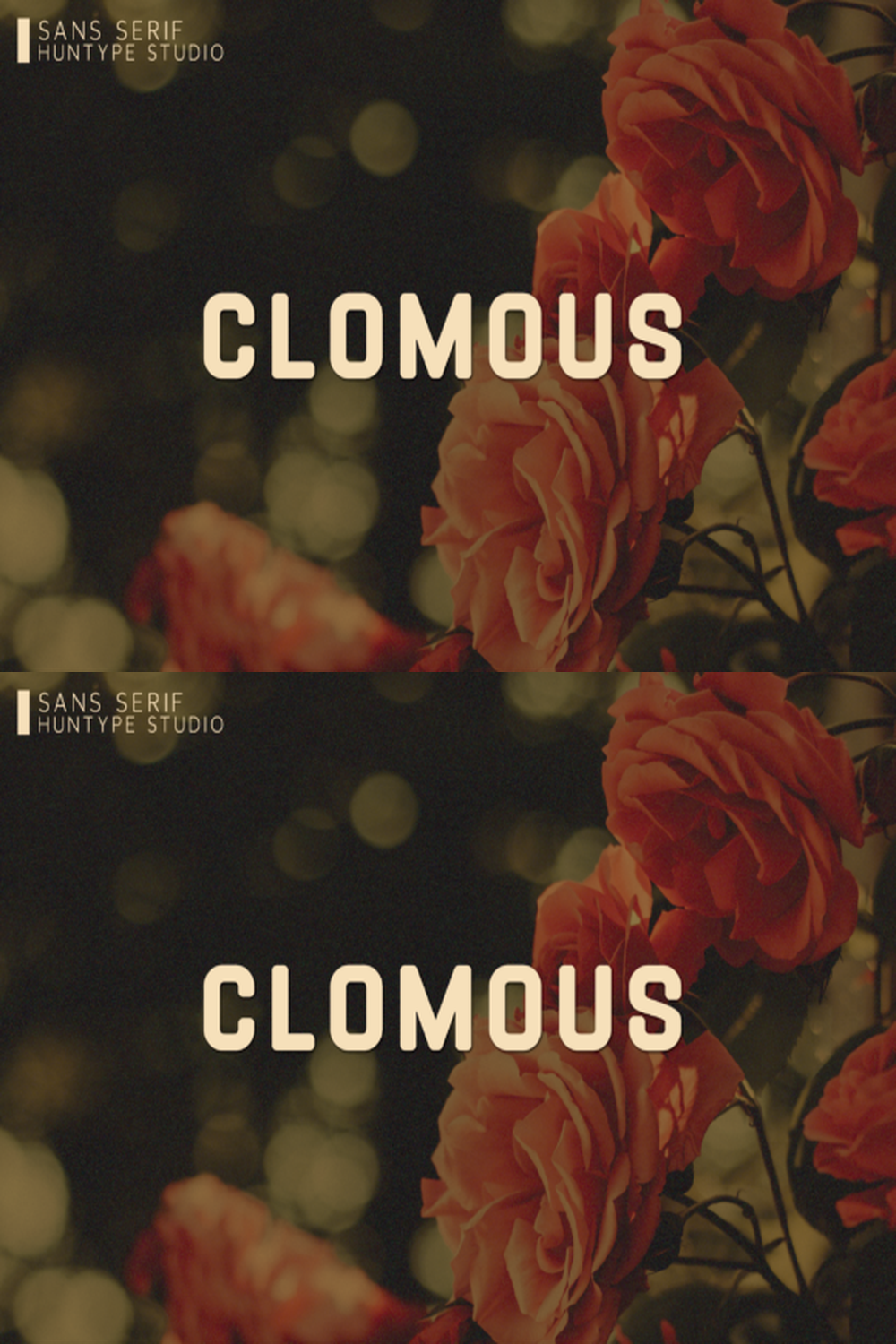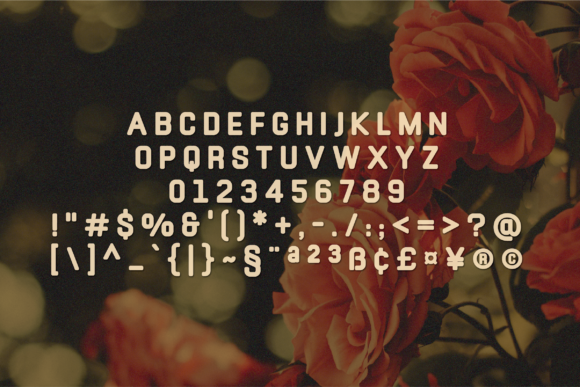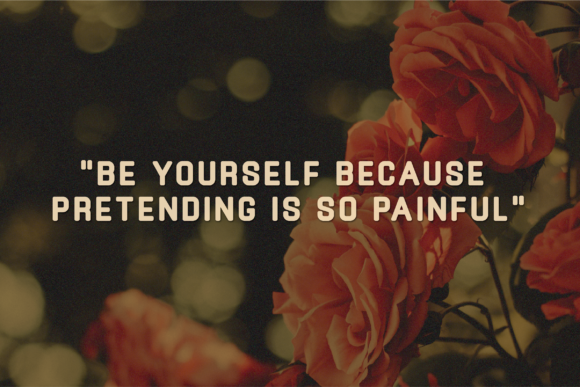
Clomous Font: Versatile Sans Serif for Modern Logo Design
About the Clomous Font
Let us introduce you to Clomous Font, where timeless design meets modern craftsmanship. Clomous is officially a new favorite of mine – this all caps sans serif is so versatile and looks great in just about any context. With smooth and clean lines, and just a touch of contrast, Versailles works beautifully for logos, branding, and web headings.
Clomous’s strong, uppercase forms make it ideal for headlines, branding applications needing impact, and short-form text on posters or packaging. Its clean lines also translate well to modern web design, particularly for prominent headings or call-to-action buttons. However, avoid using Clomous for lengthy body copy or UI elements requiring high readability; its all-caps nature can hinder legibility in extended text.
The font exudes a bold and modern personality, lending itself well to brands that project confidence and innovation. Think technology startups, contemporary fashion, or architectural firms. Pairing it with a clean sans-serif like Open Sans for body text offers excellent contrast and readability. Alternatively, a subtle serif like Merriweather can add a touch of classic sophistication, balancing Clomous’s boldness.
For a more playful approach, consider pairing it with a rounded sans-serif like Lato. In short, Clomous’s versatility allows for diverse pairings, depending on the desired mood and overall aesthetic.
Clomous Font Usage Examples
Clomous Font Example